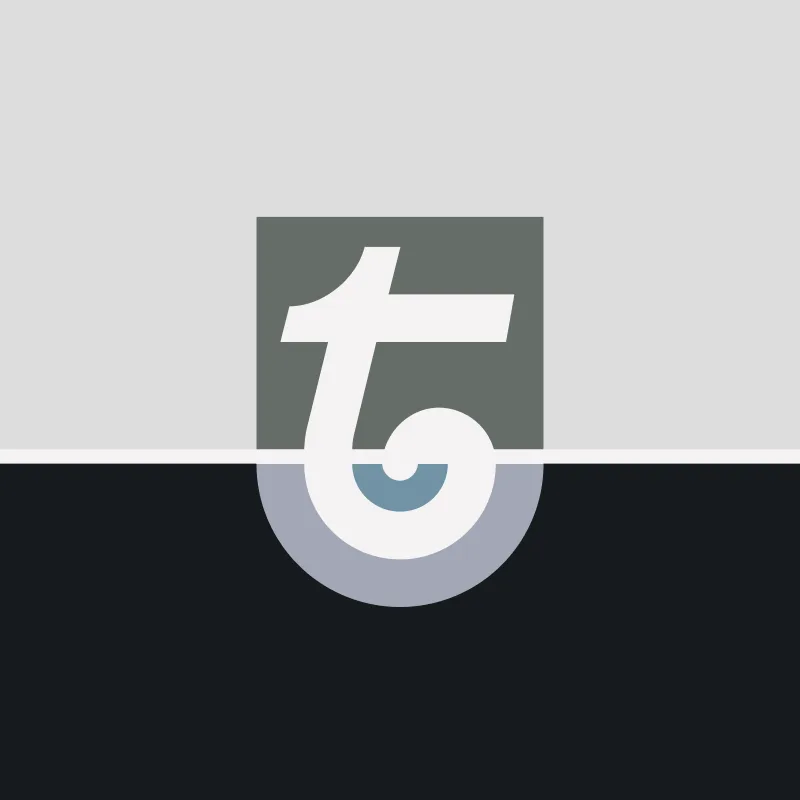
Teeline Fonts is an independent type foundry based in the United States that creates carefully crafted, research-driven typefaces. Its library is small and curated, focusing on quality, typographic refinement, and modern OpenType features rather than large-volume releases. The foundry blends historical typographic influence with contemporary design needs, making it popular among designers seeking distinctive, professional fonts.